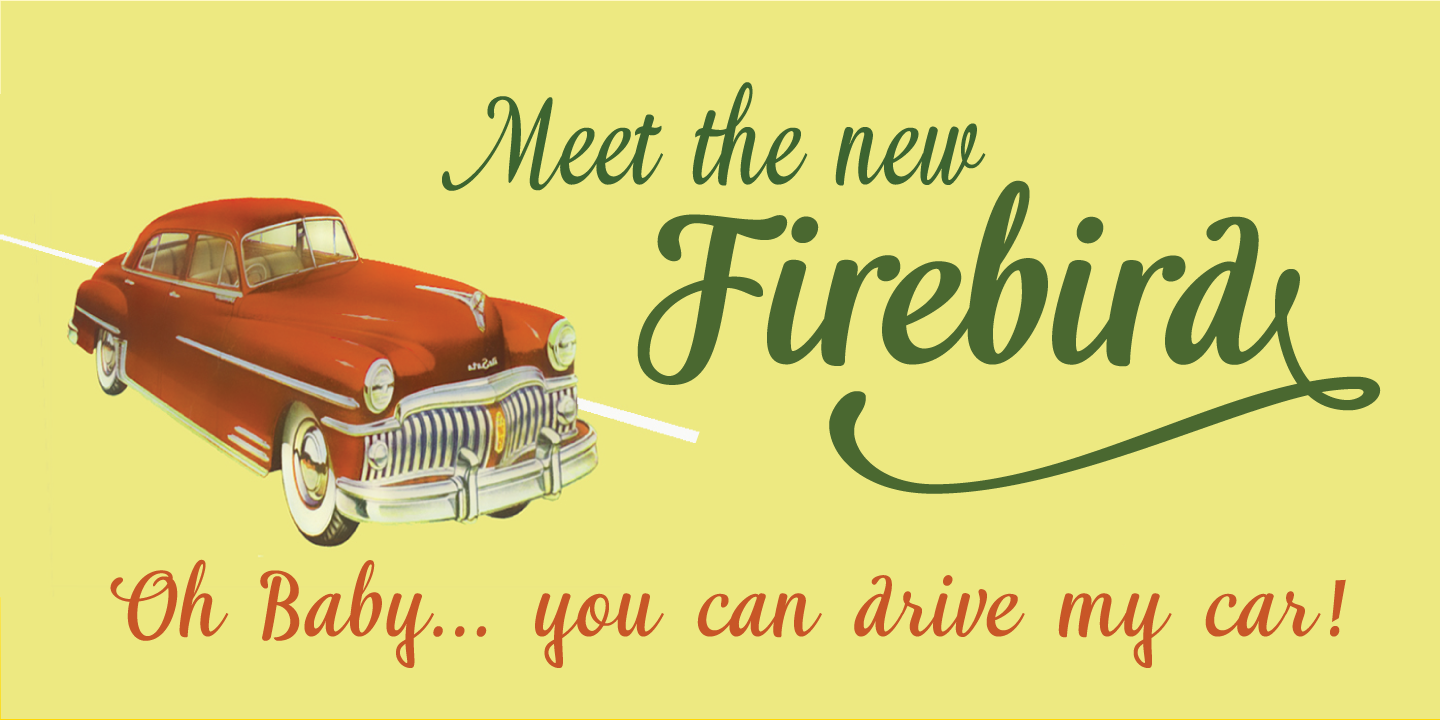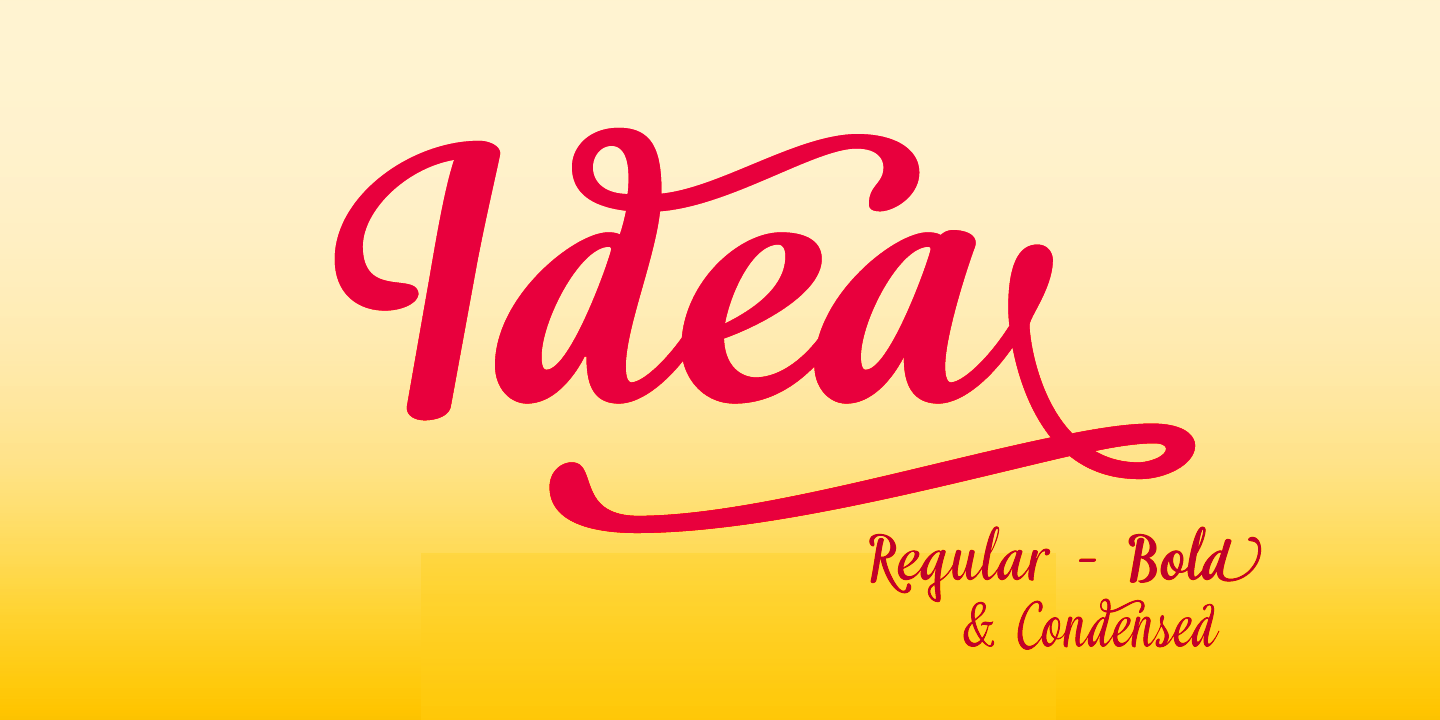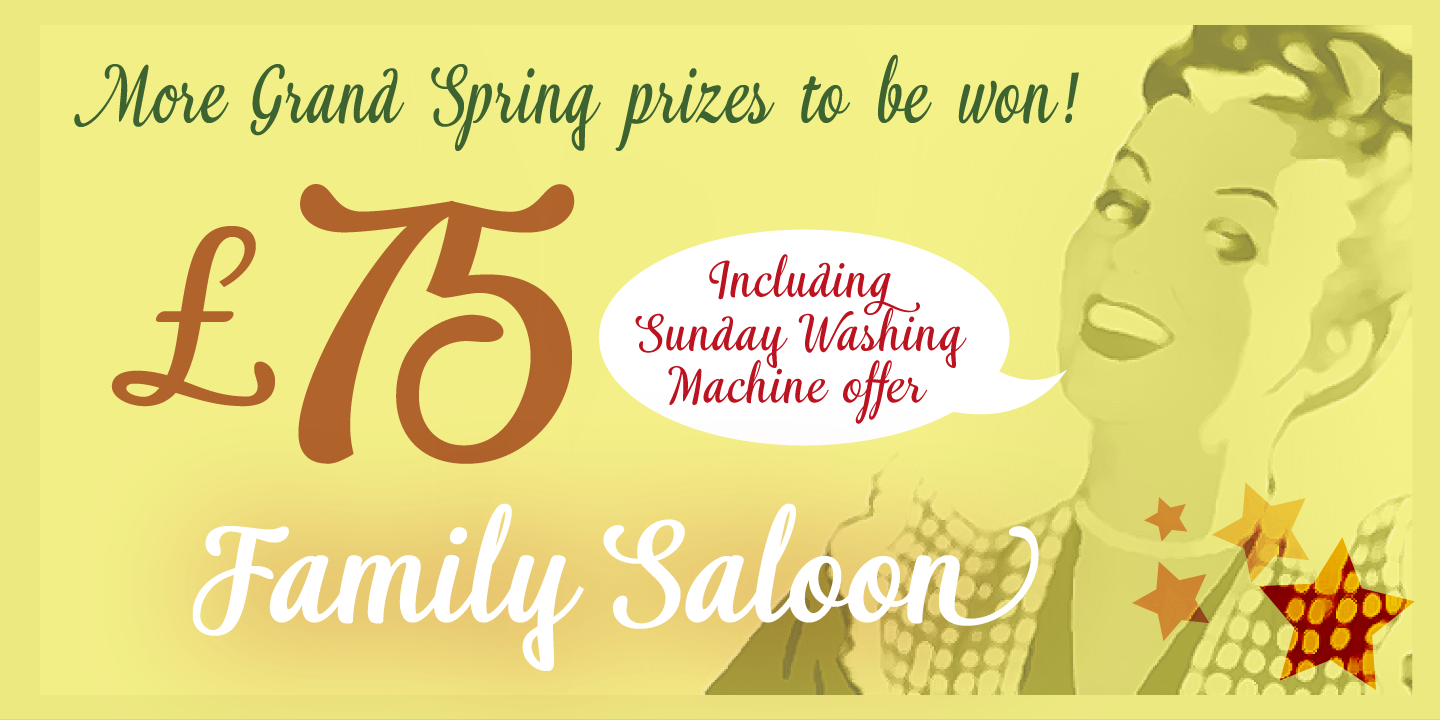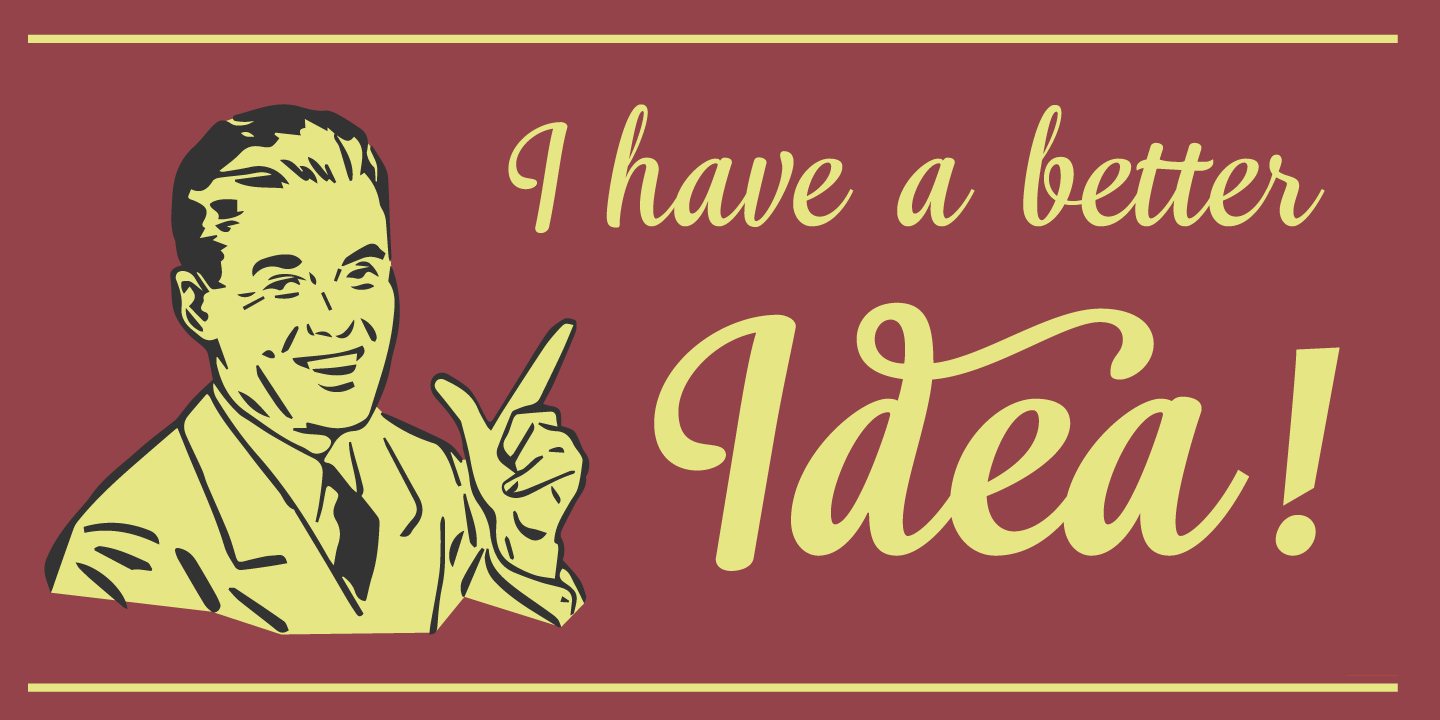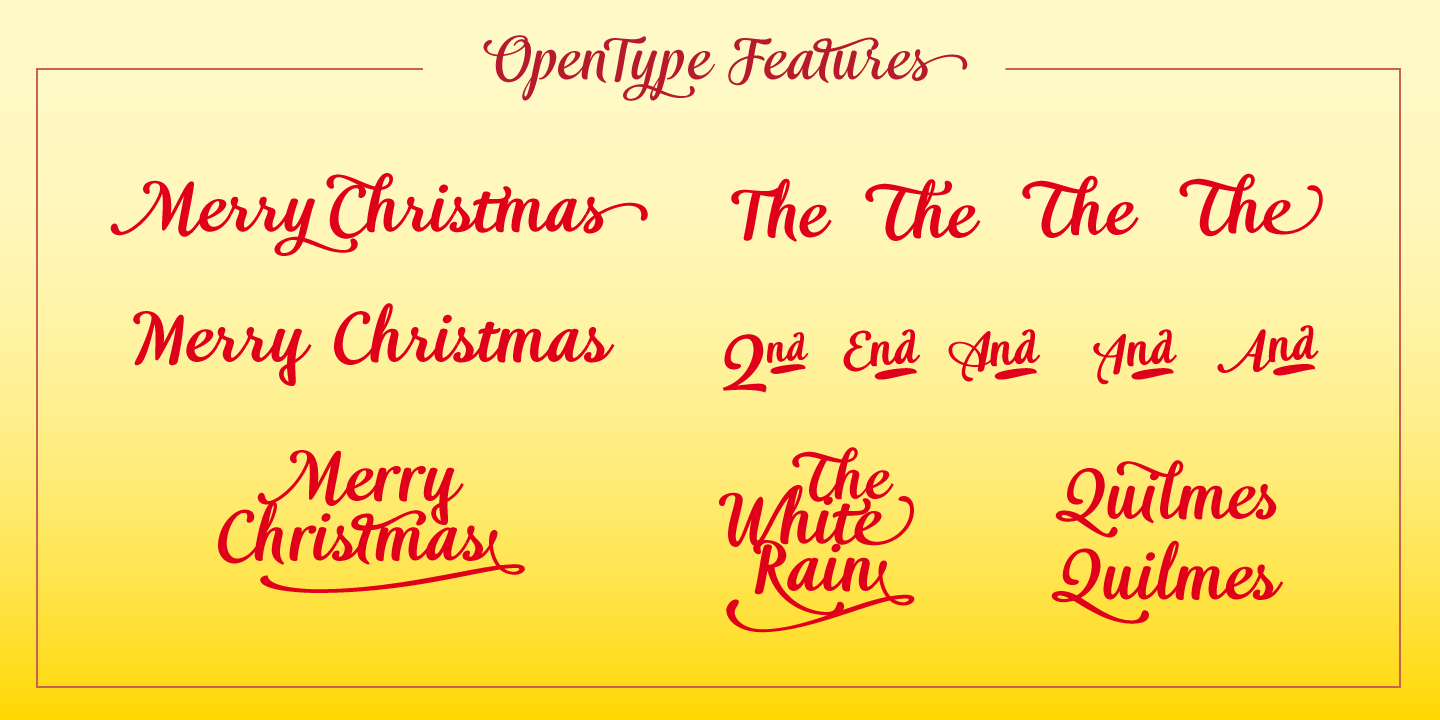
Idea
A Bold Vintage Brush Script
Idea is a bold and energetic vintage brush-script font family designed to add expressive movement to your visual projects. Crafted with bold, expressive strokes and enriched with advanced OpenType features, Idea brings energy, personality, and unmistakable handcrafted charm to any project.
OpenType Features & Stylistic Flow
Its versatile selection of stylistic alternates, ligatures, and swashes lets every word feel uniquely artistic. Idea delivers an authentic brush aesthetic that elevates your design and instantly commands attention.
Perfect for High-Impact Branding
Perfect for branding, packaging, invitations, and striking headlines, Idea is the go-to choice for designers seeking a font with character and punch.